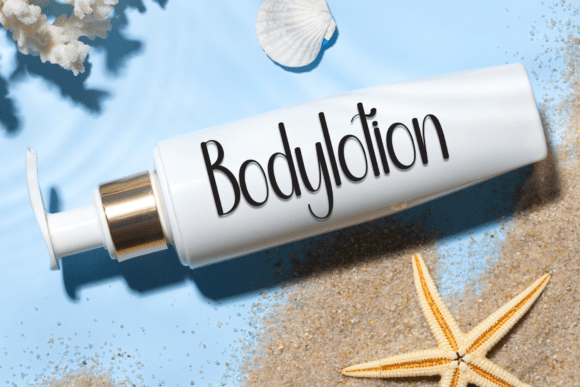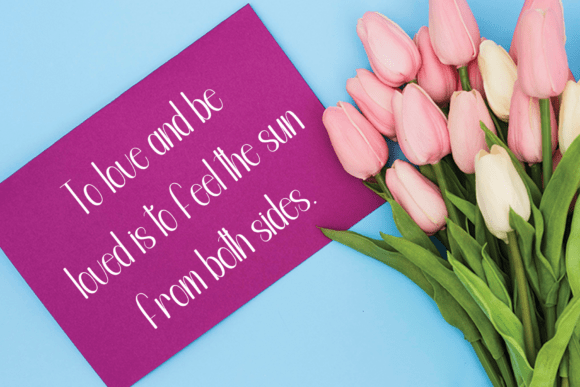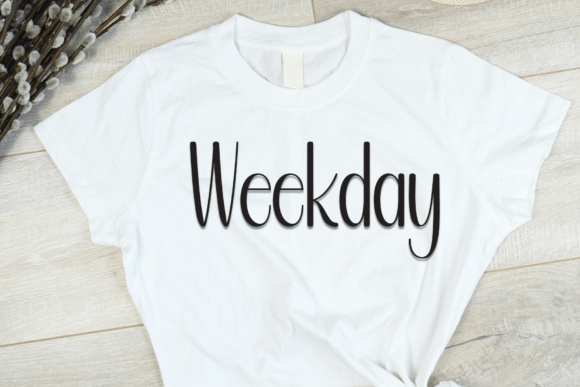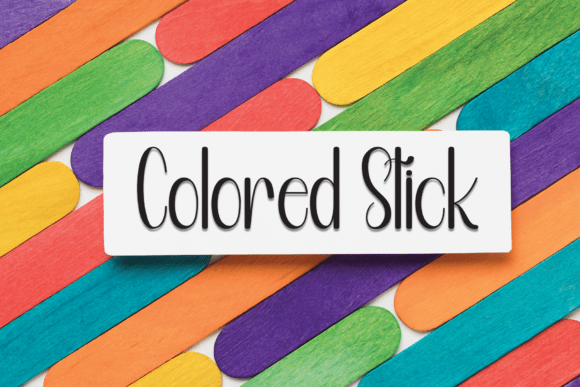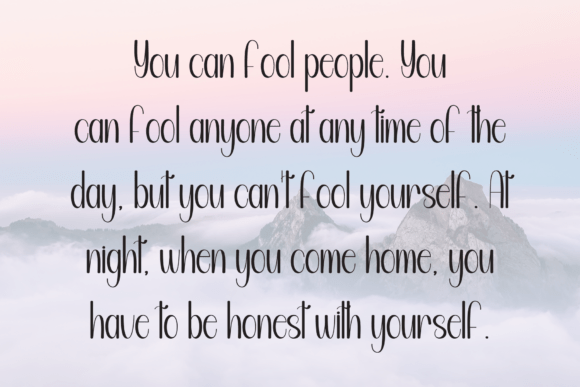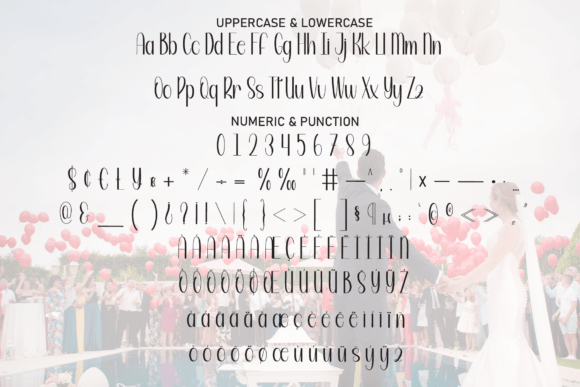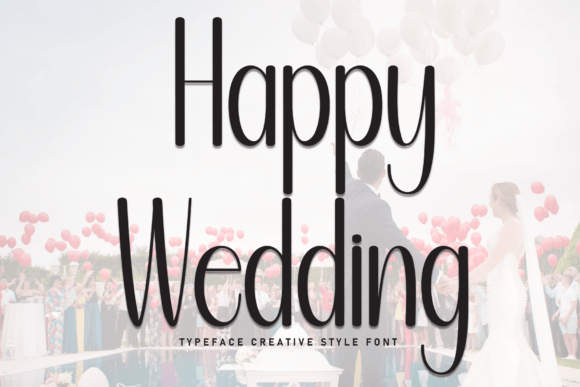
Introducing Happy Wedding Font: The Perfect Choice for Your Design Needs
Are you looking for a font that can add a personal touch to your designs? Do you want to create something that stands out from the crowd while still maintaining a natural flow? Look no further than Happy Wedding Font, a display handwritten font that bursts with personality and charm.
What is Happy Wedding Font?
Happy Wedding Font is a unique and expressive font that captures the warmth of real handwriting with bold, eye-catching strokes. Designed to stand out while maintaining a natural flow, it’s perfect for logos, social media graphics, posters, and anything that calls for a personal, expressive touch.
Key Features of Happy Wedding Font
- Handwritten style: Happy Wedding Font has a beautiful, handwritten style that gives your designs a personal touch.
- Bold and eye-catching strokes: The font features bold and eye-catching strokes that make it perfect for logos, posters, and other designs where you want to grab attention.
- Natural flow: Despite its bold strokes, Happy Wedding Font maintains a natural flow that makes it easy to read and understand.
- Versatile: This font is perfect for a wide range of design projects, from logos and social media graphics to posters and more.
Why Choose Happy Wedding Font?
There are many reasons why Happy Wedding Font is the perfect choice for your design needs. Here are just a few:
- Authenticity: Happy Wedding Font brings authenticity to your designs, making them look like they were created with love and care.
- Flair: The font adds a touch of flair to your designs, making them stand out from the crowd.
Design Ideas Using Happy Wedding Font
Happy Wedding Font is a versatile font that can be used for a wide range of design projects. Here are a few ideas to get you started:
- Logos: Use Happy Wedding Font to create a unique and memorable logo for your business or brand.
- Social media graphics: Use the font to create eye-catching social media graphics that will grab attention.
- Posters: Create beautiful posters using Happy Wedding Font to advertise your business or event.
- Wedding invitations: Use the font to create beautiful and unique wedding invitations that will set the tone for your special day.
Happy Wedding Font is a beautiful and versatile font that can add a personal touch to your designs. With its bold and eye-catching strokes, natural flow, and handwritten style, it’s perfect for a wide range of design projects. Whether you’re a designer, crafter, or DIY enthusiast, Happy Wedding Font is a great choice for anyone looking to create something unique and special.